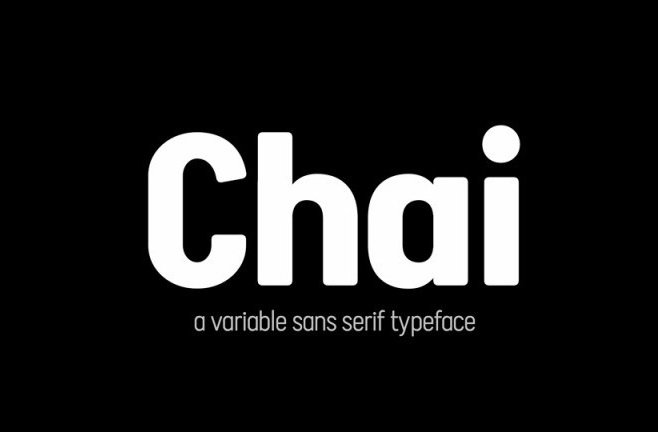
Chai Sans Serif Font
Chai Sans Serif Font is a very versatile typeface that works great in large and small sizes. It’s designed and shared by Tall Chai. This typeface is a variable display sans font family that supports Latin and Devanagari. It is designed for titles, statements, headlines, announcements, intros, outros, and other display texts. Although display type font families are traditionally more formal and stiff in their approach, Chai adds faint curves and subtle bluntness to the characters to add a human informality to its design.
Chai is also the first OpenType Variable typeface on Google Fonts to support Devanagari. It offers every single style on the weight (wght) axis between the range 300 to 700. Not only does this enable a wide array of display possibilities but also provides performance efficiency by providing the all the weight variations through a single font file.